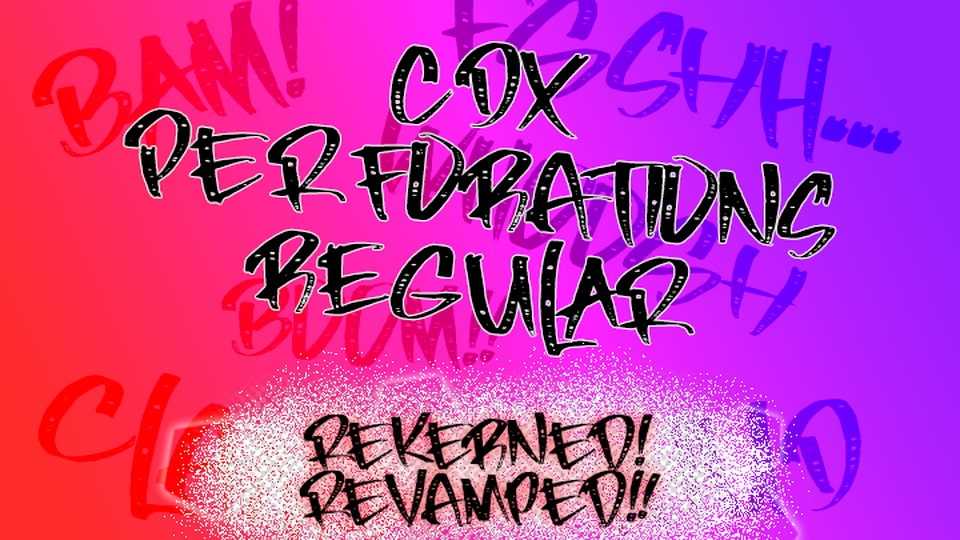
Download CDX Perforations font, a powerful and edgy hand painted typeface made using a popular Clip Studio Paint brush. CDX Perforations font is perfect for headers, logos and attention-grabbing words or phrases.